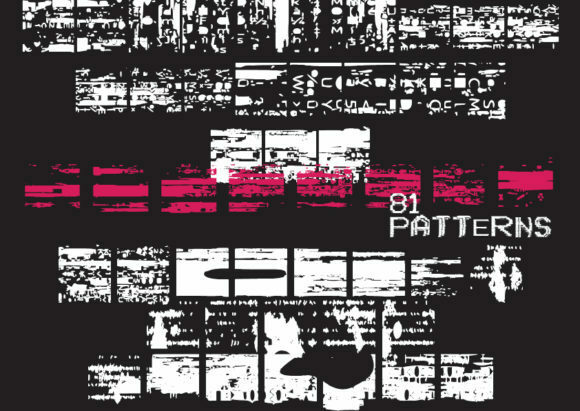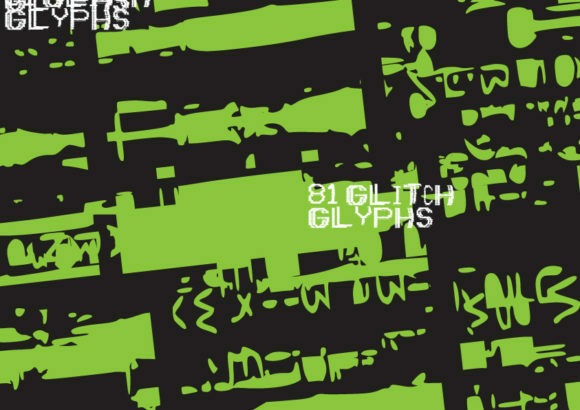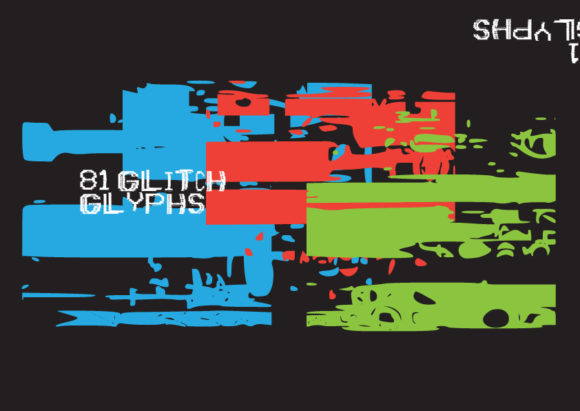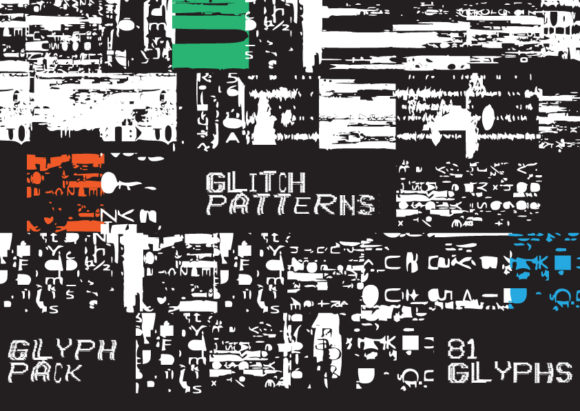
Glitch Patterns Font
About Glitch Patterns Font
Glitch Patterns sounds like an exciting dingbats font that can add a unique and futuristic touch to your creative projects. With its 81 glyphs bursting with cool glitch effects, you have a wide range of options to explore. Here are some ideas on how you can make the most of Glitch Patterns for your projects:
1. Glitch Art: As the name suggests, Glitch Patterns is perfect for creating glitch art. Experiment with the various glyphs and their glitch effects to create visually captivating and abstract compositions. Combine different elements, distortions, and colors to achieve the desired glitch aesthetic. This font can be a valuable tool for creating digital glitch art or adding glitch effects to your traditional artworks.
2. Sci-Fi Designs: The broken sci-fi look offered by Glitch Patterns can be a great asset for designing sci-fi-themed projects. Whether you’re working on a book cover, movie poster, or video game artwork, use the glyphs to add a futuristic and glitchy touch. Create backgrounds, overlays, or text effects that give a sense of technological disruption or digital distortion.
3. Digital Presentations: If you’re preparing a digital presentation, whether for work, school, or personal use, consider incorporating Glitch Patterns to add a dynamic and attention-grabbing element. Use the glyphs as backgrounds or accents for your slides to create a futuristic and visually engaging presentation.
4. Motion Graphics: Glitch Patterns can be used in motion graphics projects, such as video intros, transitions, or animated effects. Explore the different glitch effects and combine them with animations to create visually striking and dynamic visuals. This font can help you achieve glitchy and futuristic aesthetics in your motion graphics projects.
5. Experimental Designs: Don’t be afraid to think outside the box and explore unconventional uses for Glitch Patterns. It can be a valuable resource for creating experimental designs, abstract compositions, or even as an inspiration for other artwork. Let your creativity run wild and see how you can incorporate the glitch effects into your own unique style.
Remember to experiment with the different glyphs, layering them, adjusting their colors, and exploring various combinations to create the desired glitchy effects. Glitch Patterns offers a wide range of possibilities for adding a broken sci-fi look to your projects and exploring the realm of glitch art.